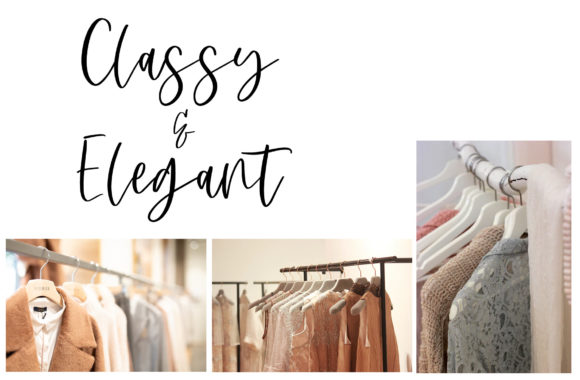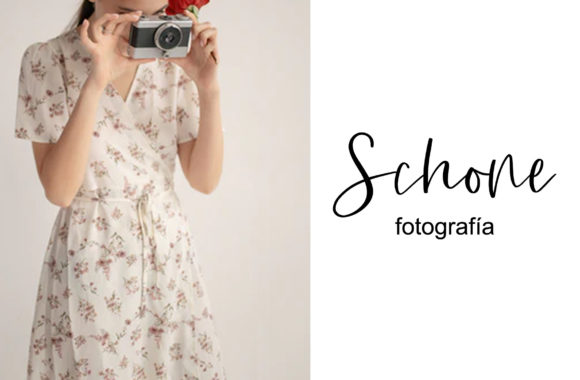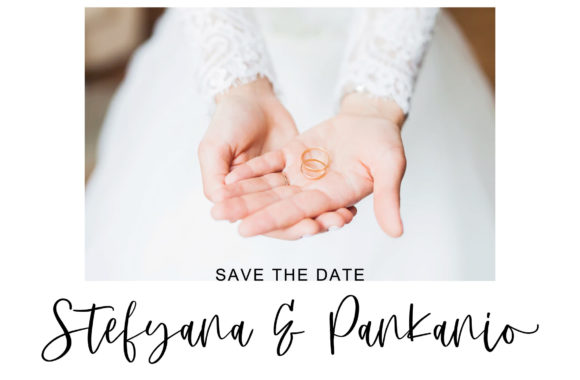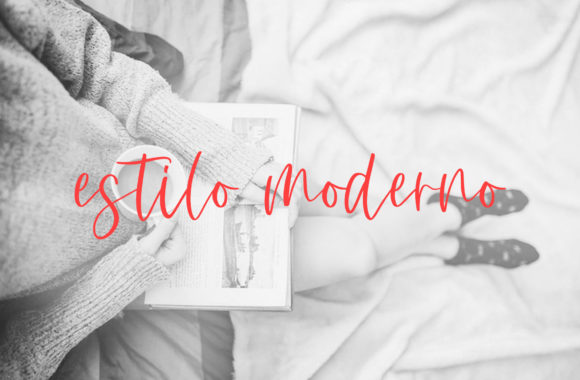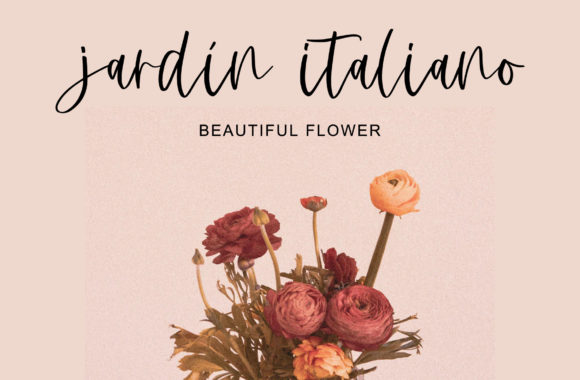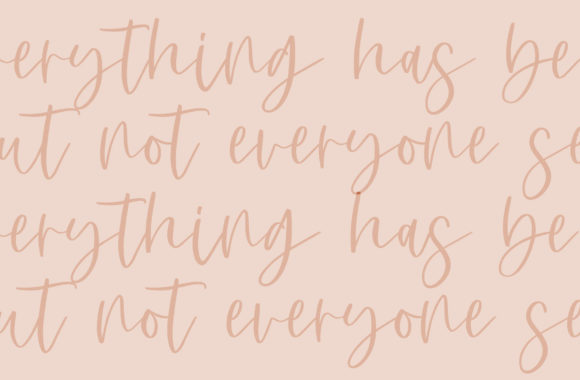
Reasonable Font
Reasonable is a chic, refined script font that emanates sophistication and elegance. Its stylish alternates and ligatures make this font the perfect match for any project.